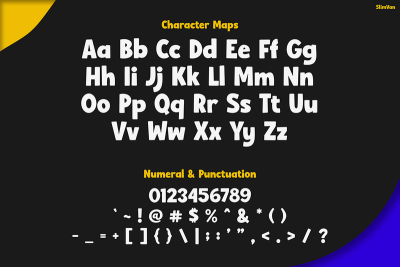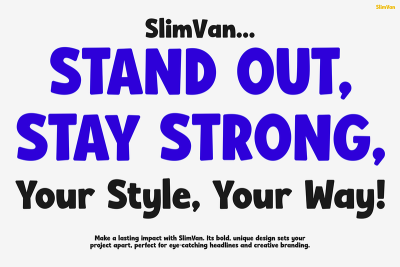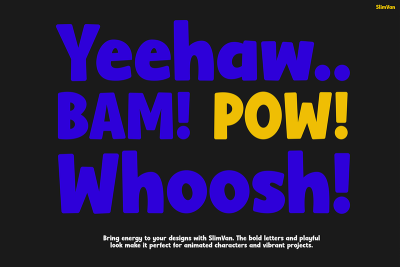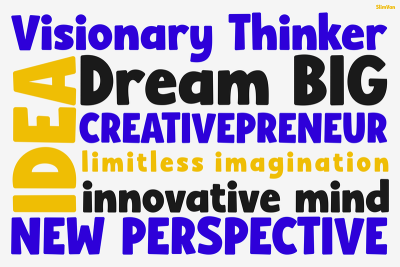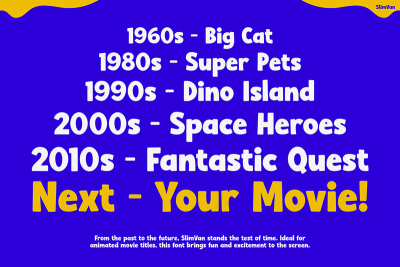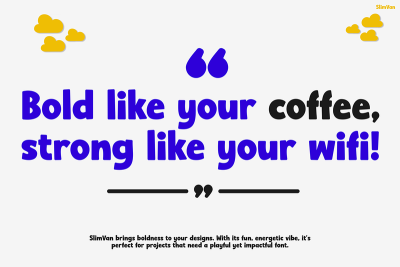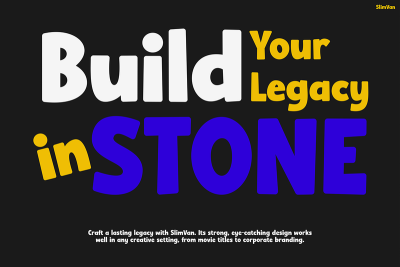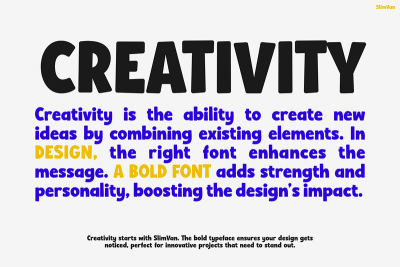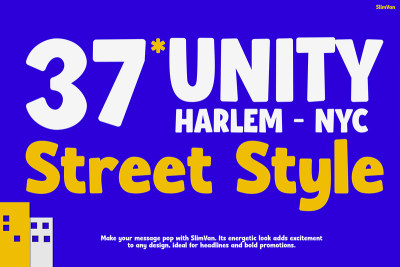
Kids Font SlimVan: Bold, Playful, and Bursting with Energy
Kids Font SlimVan is the perfect blend of bold character and playful charm. Designed to stand out, this font brings a sense of fun and energy to any design it touches. Not only are the chunky, soft-edged letterforms visually striking, but theyโre also highly readable. Inspired by vintage animations and vibrant street style, SlimVanโs cartoonish, comic-style aesthetics add a sense of personality to every project. Whether youโre working on bright headlines, animated visuals, or kidsโ product branding, this font demands attention in the most cheerful way possible.
SlimVan doesnโt just look funโit feels fun. Thanks to its exaggerated curves, thick strokes, and retro flair, it instantly injects personality into your design. As a result, your message becomes more engaging and memorable. Its friendly shapes create a sense of approachability, while still being expressive enough to convey excitement and creativity. Therefore, itโs an excellent tool for adding emotion and motion to both digital and print media. From playful product packaging to bold movie titles, SlimVan helps tell stories that are full of life.
Who is it for Kids Font SlimVan?
SlimVan is made for creatives who want to bring joy to their audience. Itโs ideal for:
Childrenโs book designers, especially those who need engaging typography to spark young readers’ imaginations.
Toy and kids’ apparel brands looking to stand out with bold, friendly type.
Animators and video creators working on characters or series with a quirky, fun vibe.
Educators and schools, who aim to craft visual materials that are both exciting and easy to read.
Poster, sticker, and packaging designers who want something that pops off the page.
In short, whether youโre designing for kids, teens, or just the young at heart, SlimVan helps your message bounce with joy and energy.
Let Your Ideas Shout โWow!โ